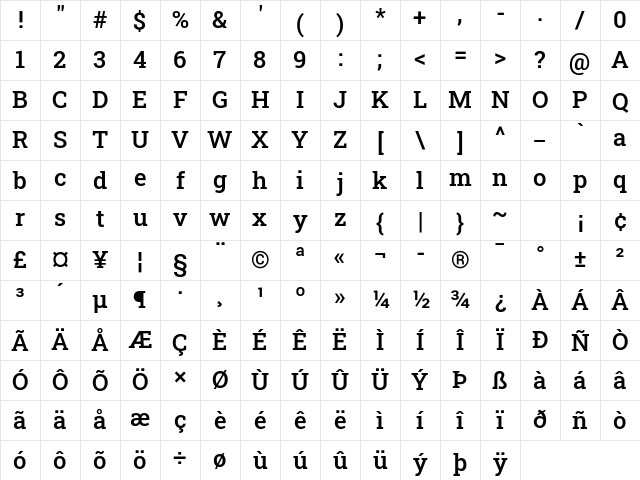
Complete Roboto Slab Medium Regular glyph index. Displaying only characters natively supported by Roboto Slab Medium Regular font.
Roboto Slab Medium features prominent, blocky serifs that give it a confident, grounded presence - equally at home in editorial settings and bold branding work.
Pro Tip: Use Roboto Slab Medium for headlines and subheadings where its slab serifs can make an impression. It also holds up well in mid-size body copy thanks to its sturdy construction.